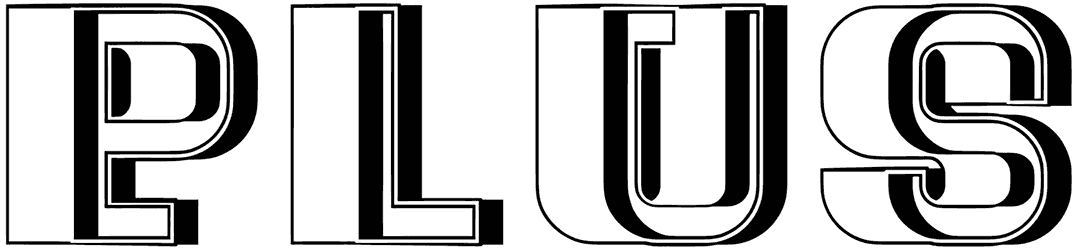
Plus Font
The Plus, a 3D font with aesthetic potential, would give your digital works a futuristic appearance and feel while drawing attention to the texts. This fancy 1940s font is an excellent alternative in branding, posters, clothing, cards, etc., despite the lack of lowercase characters. If you enjoy a good challenge, give it a shot; the outcome will blow your customer’s mind.